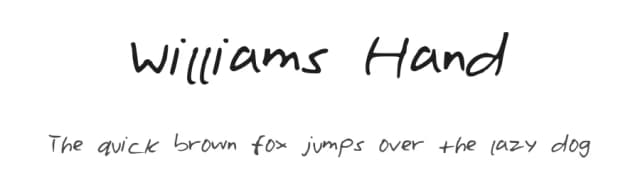
About Williams Hand Neat Font
Williams Hand Neat Font is a script font that shines as a display or heading face. Pair it with a clean sans-serif or serif font for body text β the contrast creates a clear hierarchy while the two styles stay balanced and easy to read.
Williams Hand Neat Font
by Meaghan Wong